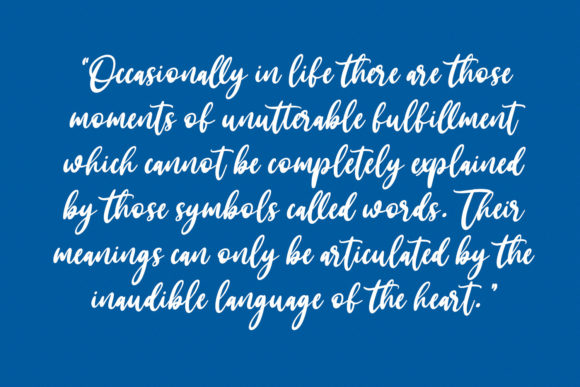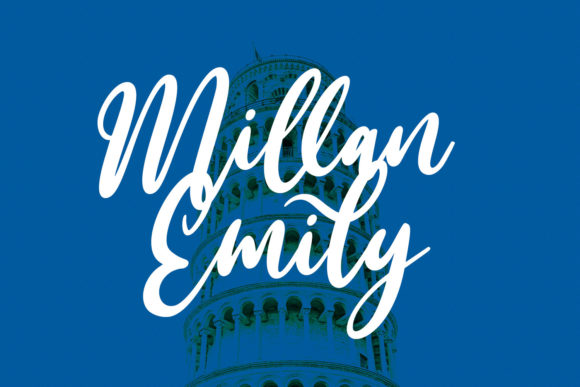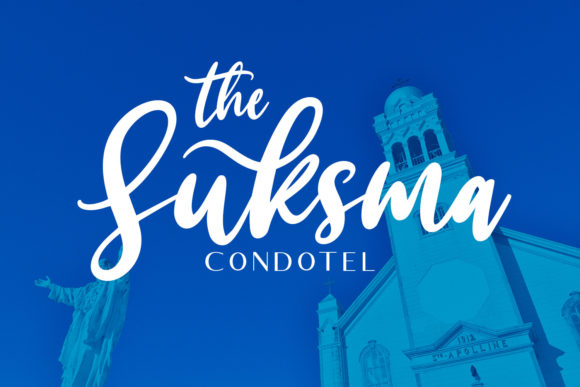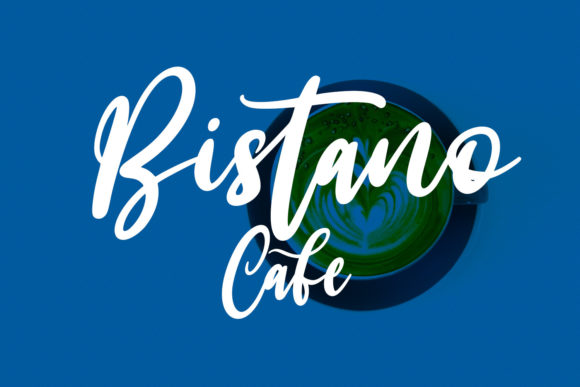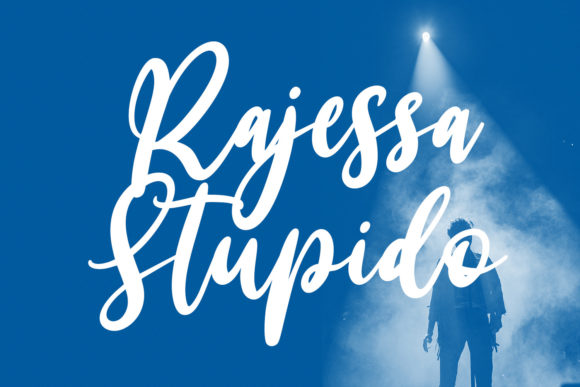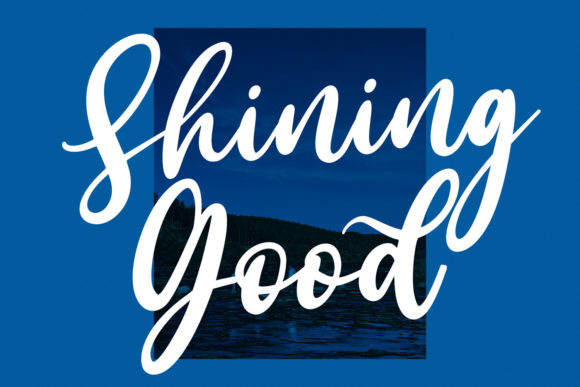
Introduction to Lanchoster Font
Lanchoster is a fancy script font.
It features medium contrast strokes, fun characters, ligatures and alternates Add it to any of your designs, and enjoy the results.
Lanchoster Font offers exceptional quality and versatility, making it a valuable addition to your design toolkit. Whether you’re creating for personal projects or commercial use, Lanchoster Font delivers professional results.